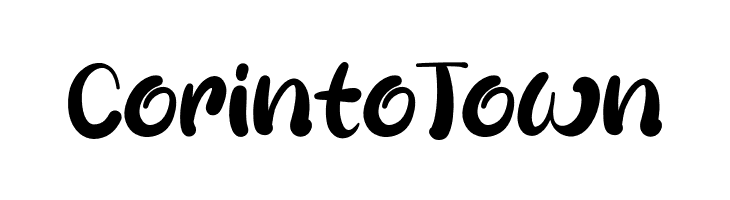
A bold, playful font with a compact and energetic style.
A sleek, modern sans-serif font with high contrast and elegant design.
A playful font with neon-outlined letters inside heart shapes, perfect for romantic themes.
A modern, geometric font with uniform stroke width and rounded edges.
A bold, distressed font with a grunge, hand-drawn style.
A futuristic, italicized font with bold, angular letterforms.